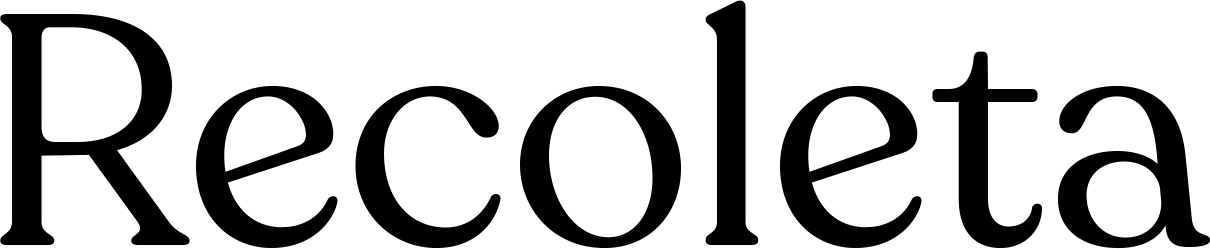
Recoleta Font
You may want to design a logo for a reputable and large brand or introduce an online shop to the audience in a completely formal way. One of the ideal solutions for designing this kind of logo is to use formal and special fonts such as Recoleta.
Recoleta is a serif font that is very beautiful and you can use it to convey a sense of trust and credibility to the audience.
Just like Grandma’s recipe, Recoleta combines a variety of ingredients—from various popular 1970s typefaces—such as the soft and gentle shapes found in Cooper or fluid, angled strokes in Windsor— mixed into one single design that features familiar yet fresh, modern flavors.
Its variety of weights provides a range of choices that will help you find the best typographic color for your project. Lighter weights are well-suited for body text while heavier ones are ideal for high impact headlines. The available stylistic alternates offer a number of different characters that give your logo or business card a unique look.